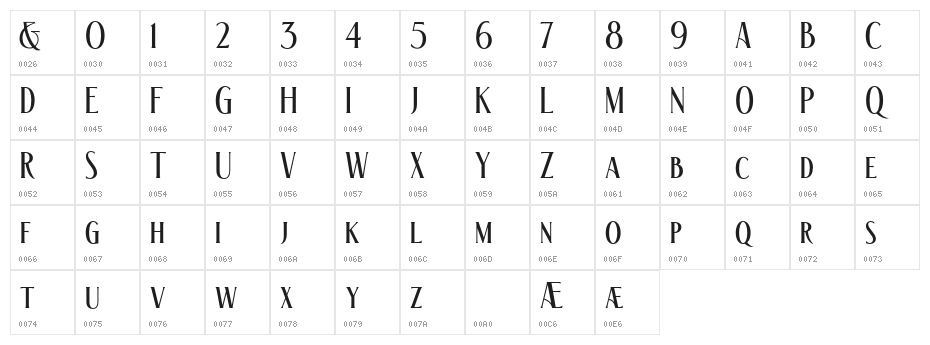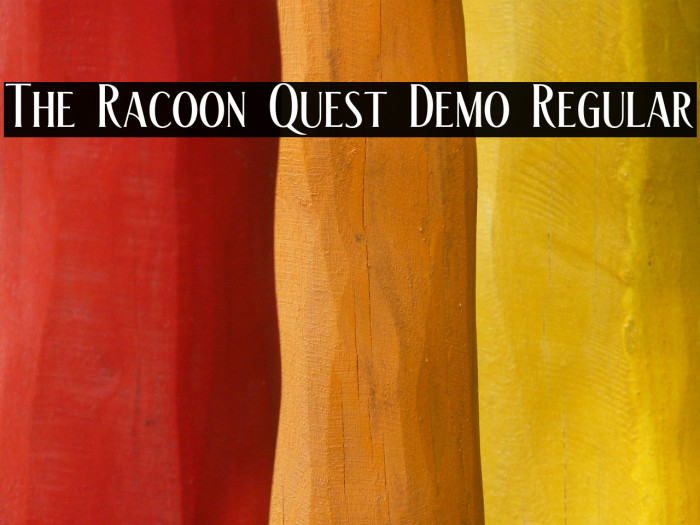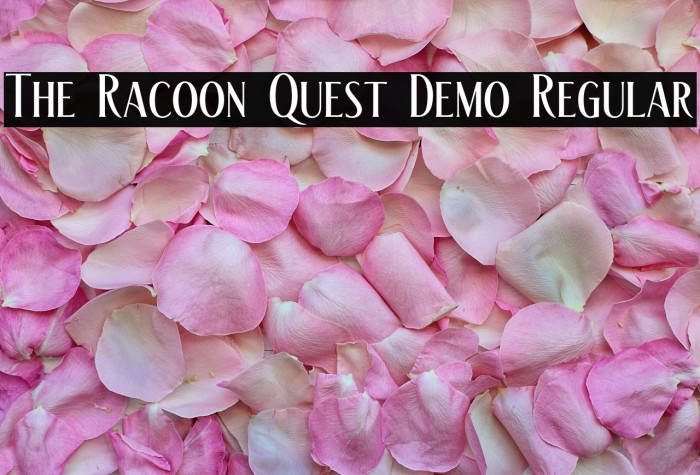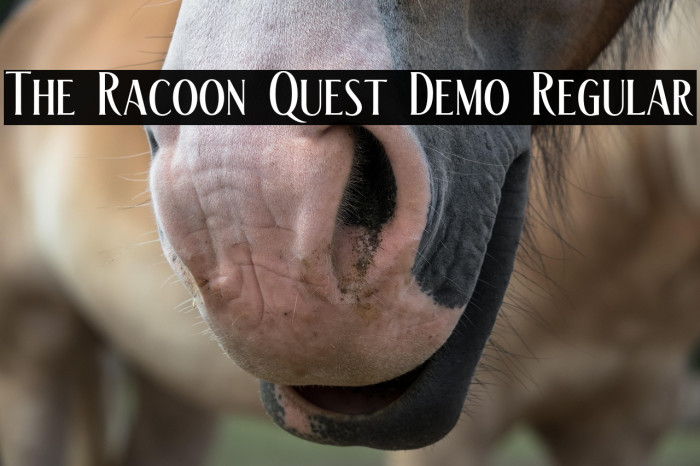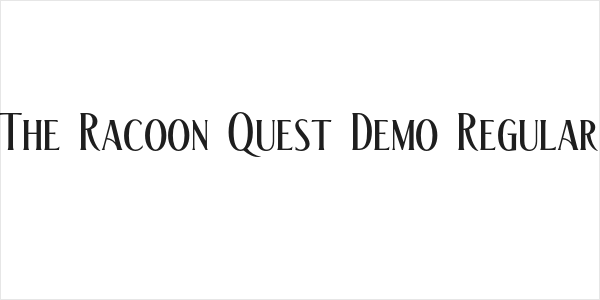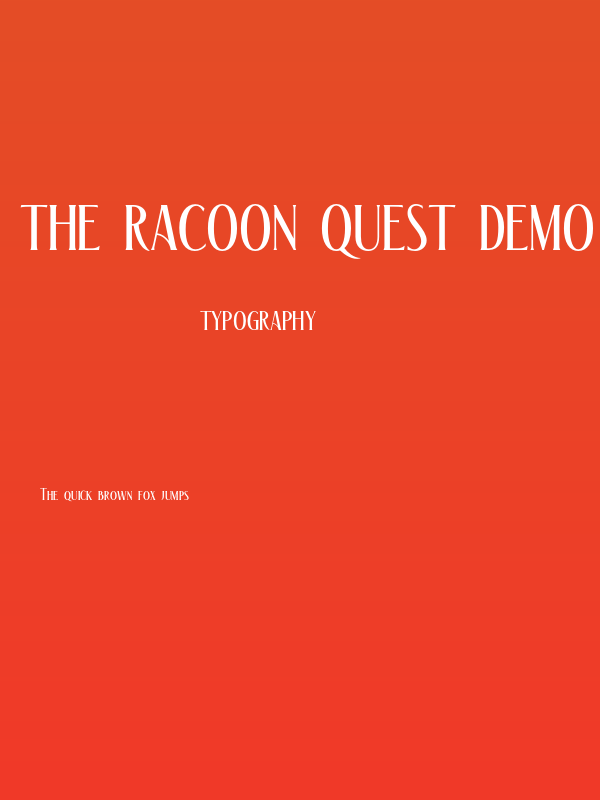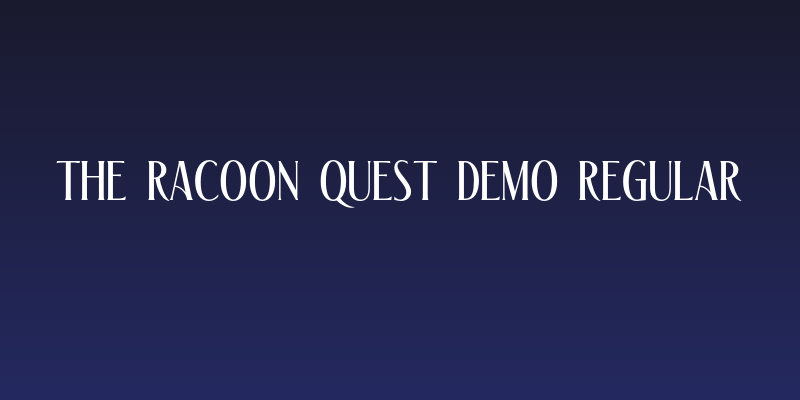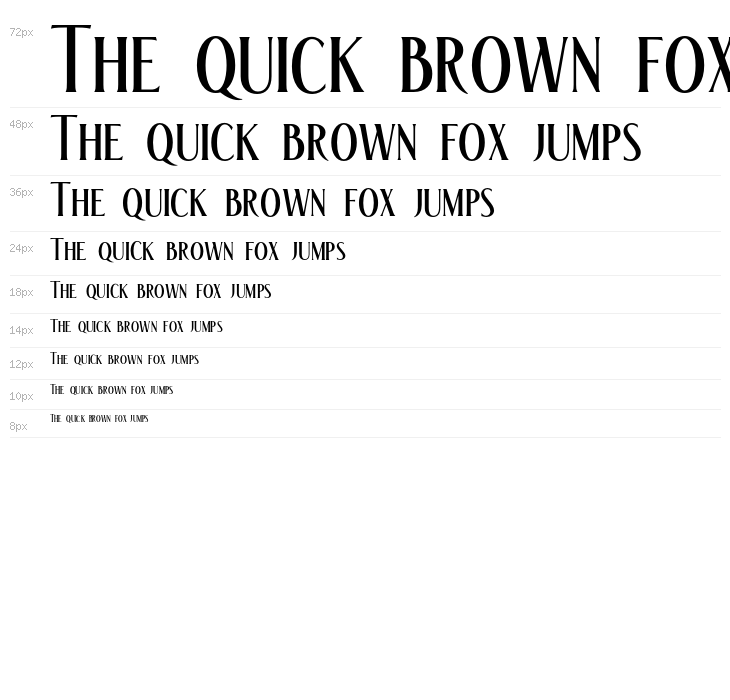
The Racoon Quest Demo Regular Font
The Racoon Quest Demo Regular Description
This font features a distinct and elegant style with high contrast between thick and thin strokes, giving it a sophisticated and modern appearance. The uppercase letters are tall and slender, with a slight curvature that adds a touch of elegance. The lowercase letters maintain a consistent style, complementing the uppercase with their own unique flair. The numerals are designed with a similar high contrast, ensuring readability while maintaining the overall aesthetic. Special characters are crafted with attention to detail, fitting seamlessly into the font's design. This font is suitable for projects that require a touch of class and modernity.
| Use Case | Headlines, Logos, Editorial design |
| Proposed Projects | Ideal for branding, editorial design, luxury product packaging, and elegant invitations. |